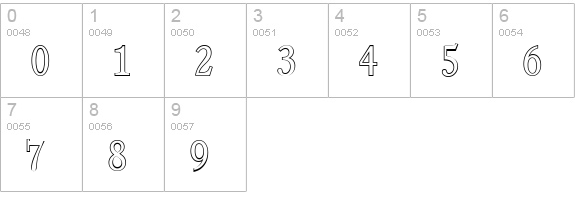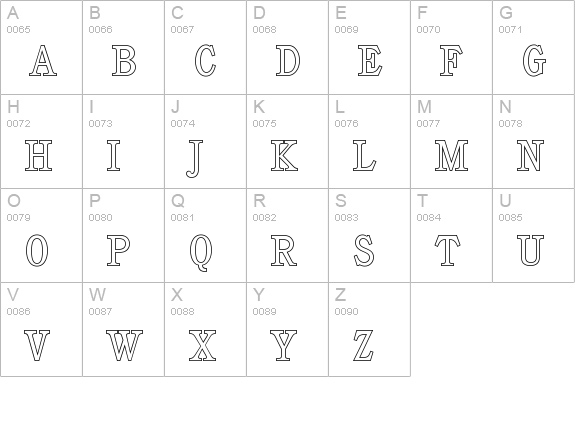
CalgaryOutline-Light-Regular Font Details
CalgaryOutline-Light-Regular is a refined, elegant variant in the CalgaryOutline typeface family \xE2\x80\x94 well suited to elegant body text, refined sub-headings, and luxury branding.
CalgaryOutline-Light-Regular font is a modern and sleek typeface that exudes elegance and sophistication. With its clean lines and contemporary design, this font is perfect for a wide range of projects including branding, advertising, and editorial design. The light weight of the font adds a touch of subtlety and delicacy, making it ideal for conveying a sense of refinement and sophistication. What sets CalgaryOutline-Light-Regular font apart is that it is available for free download at FontsMarket.com. This means that you can easily access and use this stylish font in your projects without any cost. Whether you're a designer looking to elevate your work or a business owner seeking a fresh look for your brand, CalgaryOutline-Light-Regular font is the perfect choice. Download it today and add a touch of elegance to your designs.